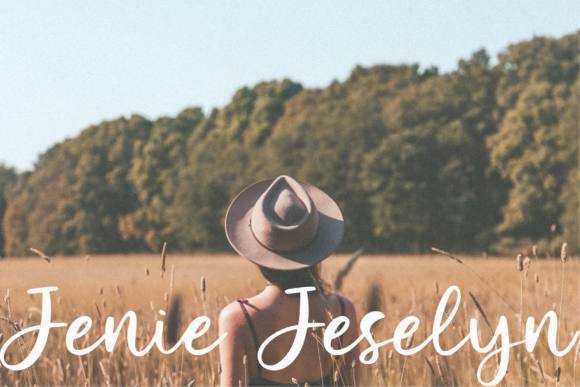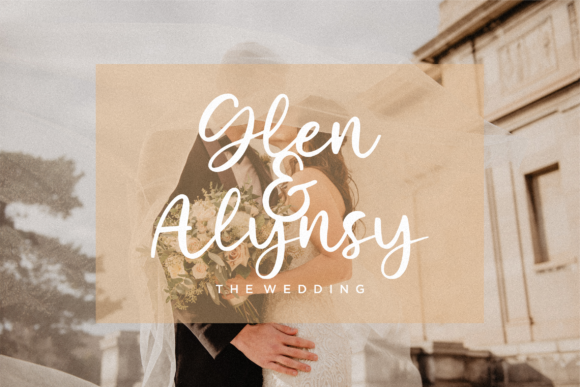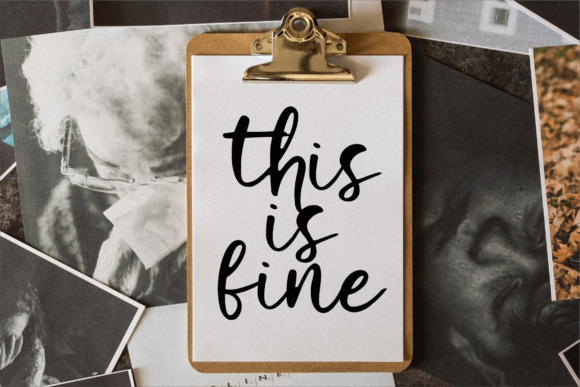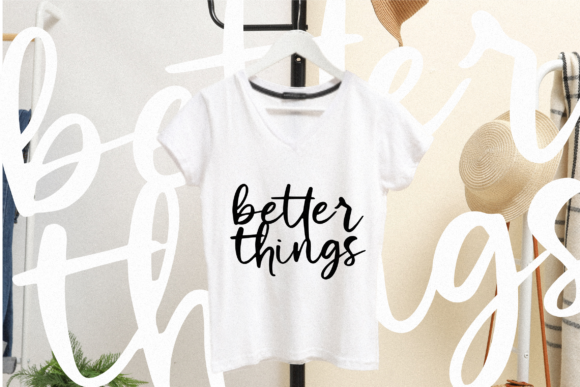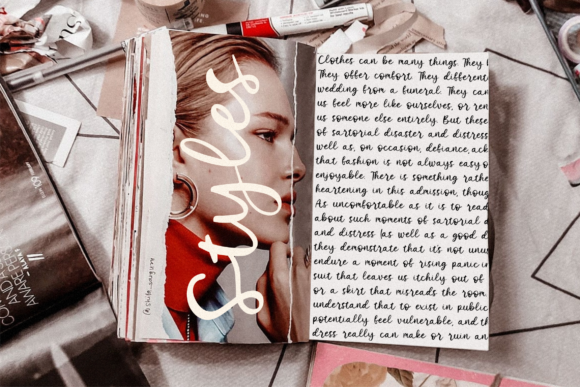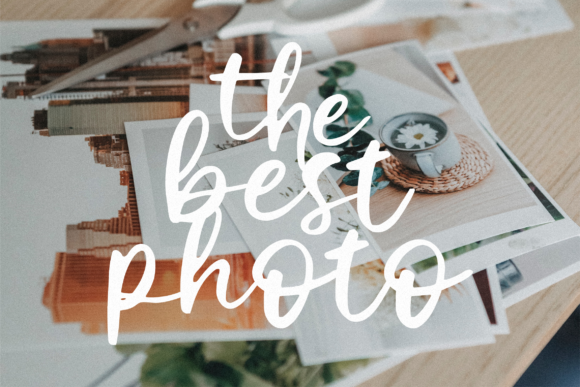
The Magic of Handwritten Typography: Glenetta Font
Have you ever sat down with a blank sheet of paper and a pen, feeling the urge to create something beautiful and personal? For many of us, this moment sparks a world of creativity and imagination. As designers, we’re always on the lookout for the perfect font to capture that special feeling, and that’s where Glenetta Font comes in.
Glenetta is a charming, handwritten font that’s as versatile as it is elegant. Whether you’re designing a heartfelt greeting card, crafting a romantic headline, or adding a touch of whimsy to a branding project, Glenetta Font is guaranteed to bring a sense of warmth and personality to your work. With its expressive strokes and fluid lines, this font is a must-have for any designer looking to add a touch of magic to their next project.
Glenetta Font Key Features
- Font Style: Script, elegant, and cursive
- Unique Characteristics: Glenetta Font features elegant swashes and flourishes, making it perfect for invitations, wedding stationery, and other formal events.
Glenetta Font Review
Glenetta Font is a beautiful, elegant script font that I was excited to try out. I must say, it does deliver in many areas. ✨ One of the things that stands out is its cursive feel, which is perfect for any project that requires a touch of sophistication and whimsy. The font is highly legible, even at smaller font sizes, making it suitable for a wide range of applications.
- Beautiful, elegant script design
- Highly legible even at smaller font sizes
- Perfect for projects that require a touch of sophistication and whimsy
However, there are a few limitations that I want to highlight. ⚠️ Firstly, the font lacks a complete set of glyphs, which may be a problem for projects that require support for non-English languages. Additionally, the font’s design can make it difficult to read at very large font sizes, which may not be ideal for headings or titles.
Overall, I would say that Glenetta Font is a solid choice for designers who need a elegant script font for their projects. While it may have some limitations, its unique design and high legibility make it a great option for many applications.
Tips for Getting the Most Out of Glenetta Font
For best results, use Glenetta Font for titles and headings to add a touch of elegance. You can also use it for body text to create a cohesive and sophisticated look.
Glenetta Font is ideal for creative projects, such as:
- Branding and marketing materials
- Editorial and publishing projects
What is the recommended font size for optimal readability with Glenetta Font?
The recommended font size for optimal readability with Glenetta Font is between 12 and 14 points. However, this may vary depending on the design context and intended audience. It’s essential to test different font sizes to ensure the best legibility for your specific project.